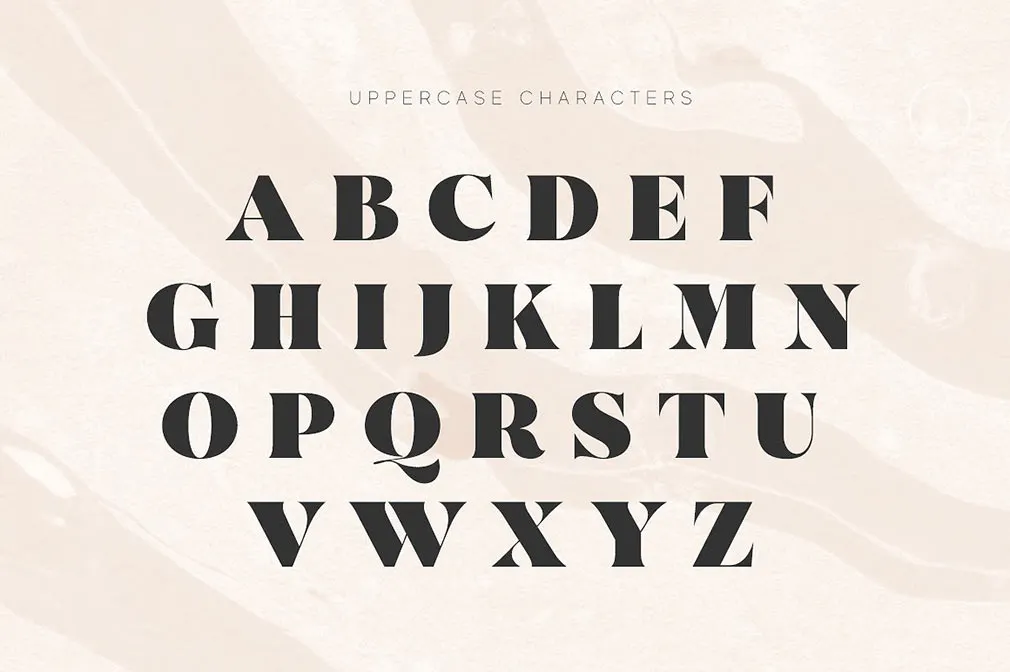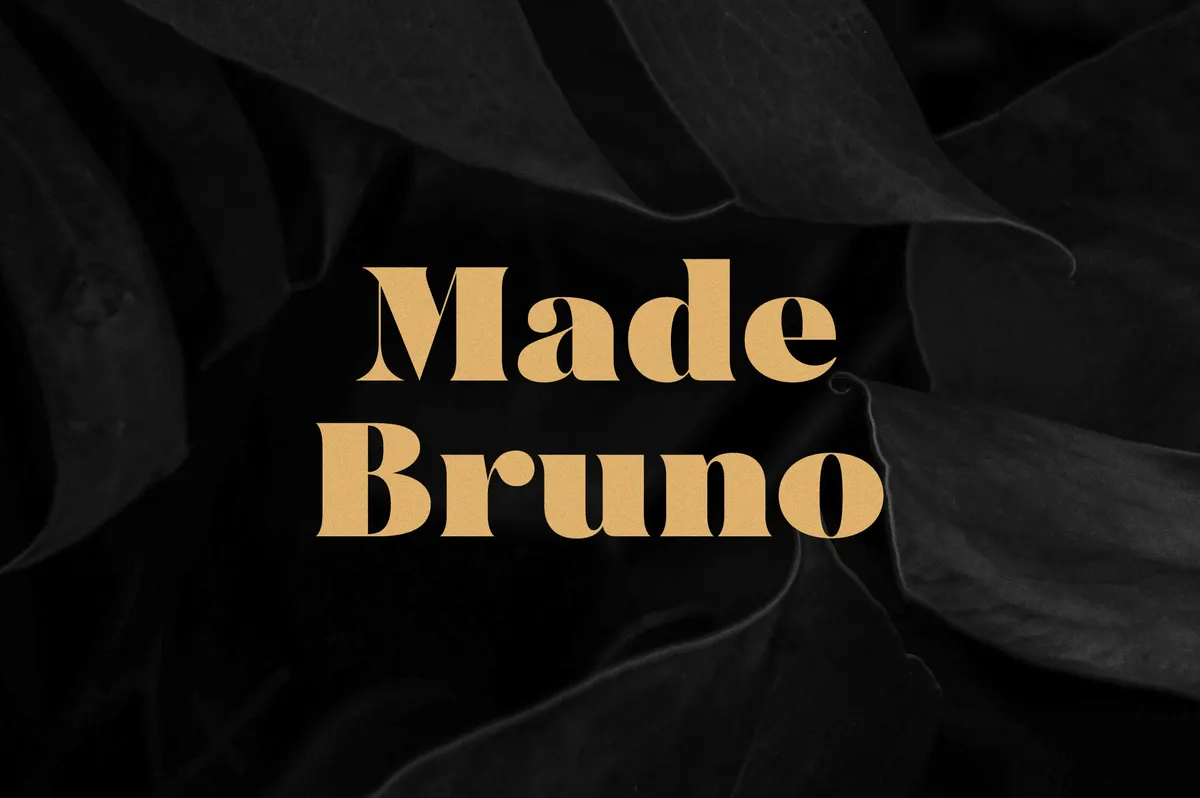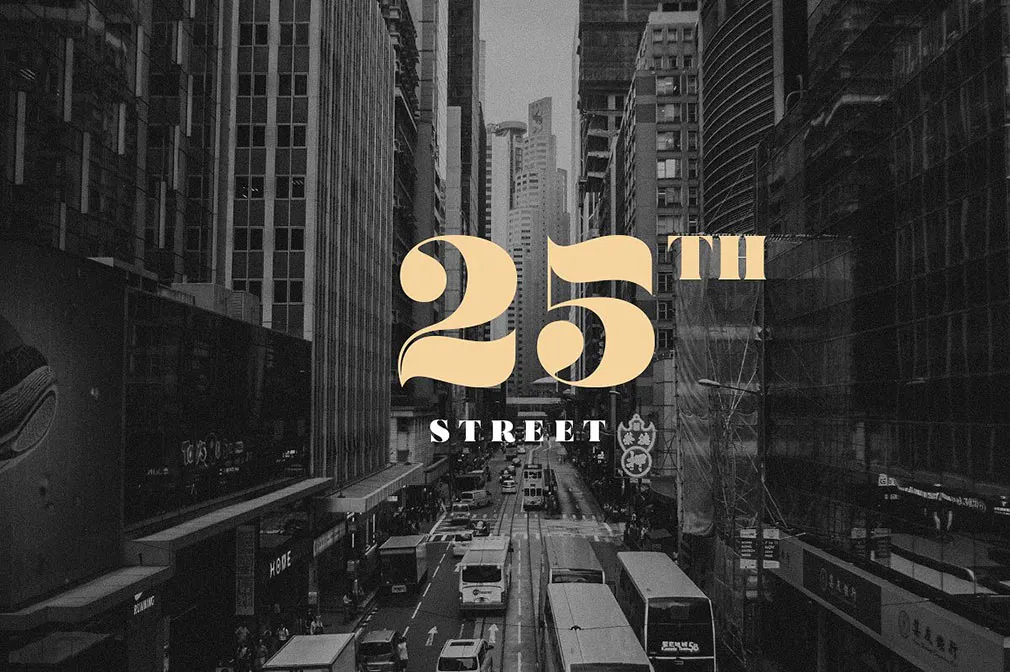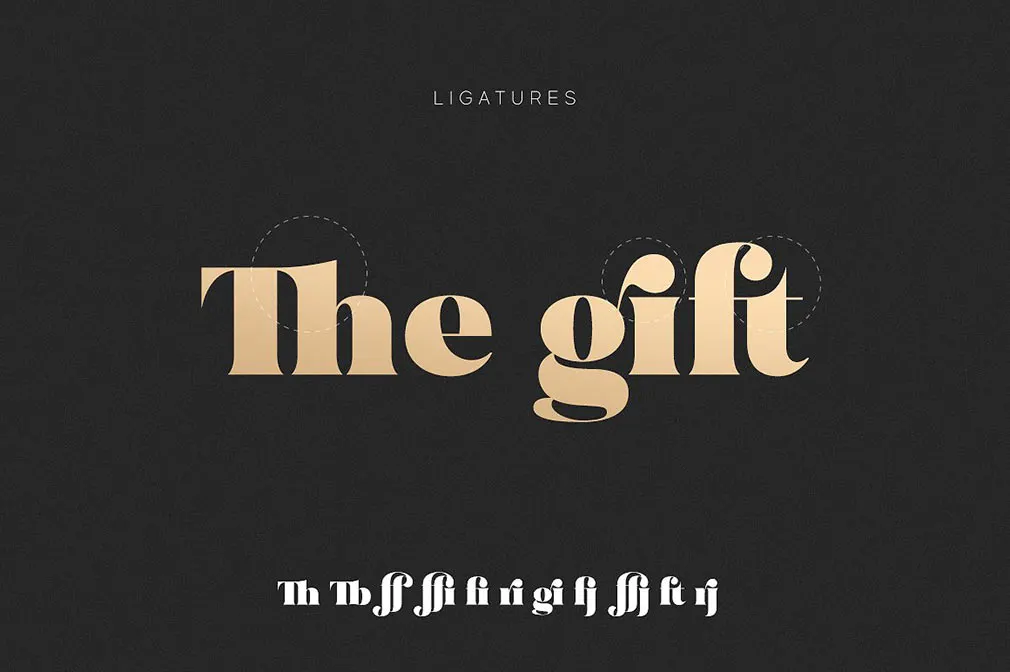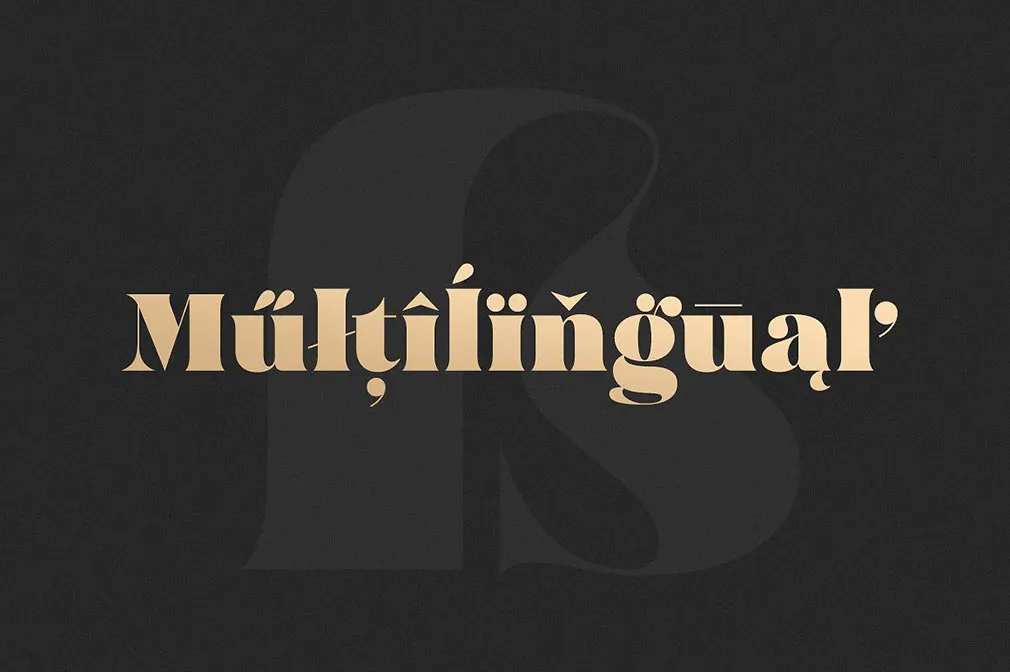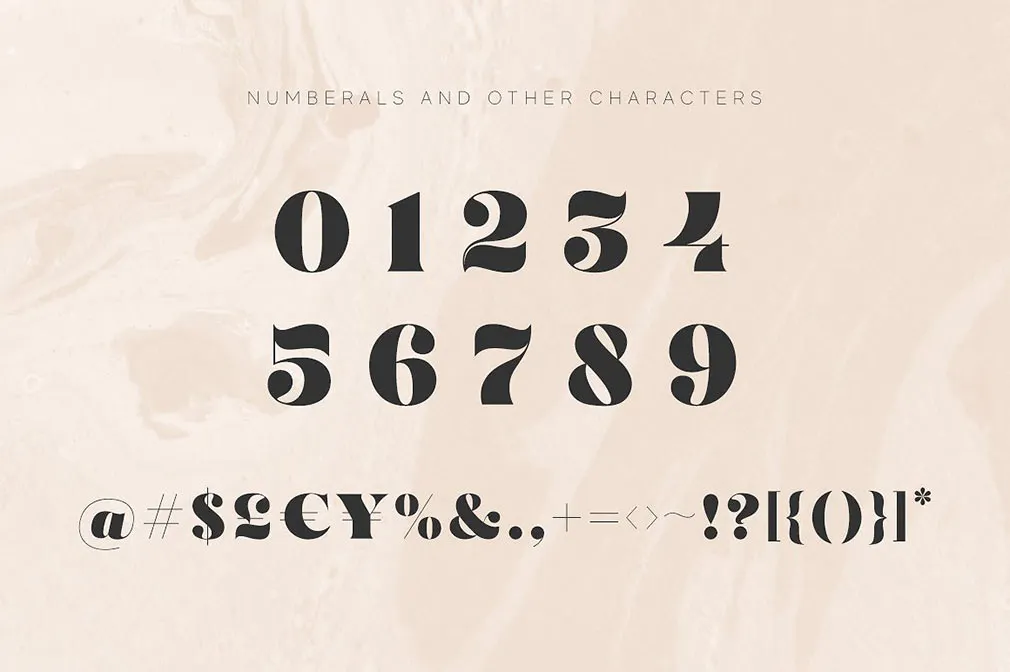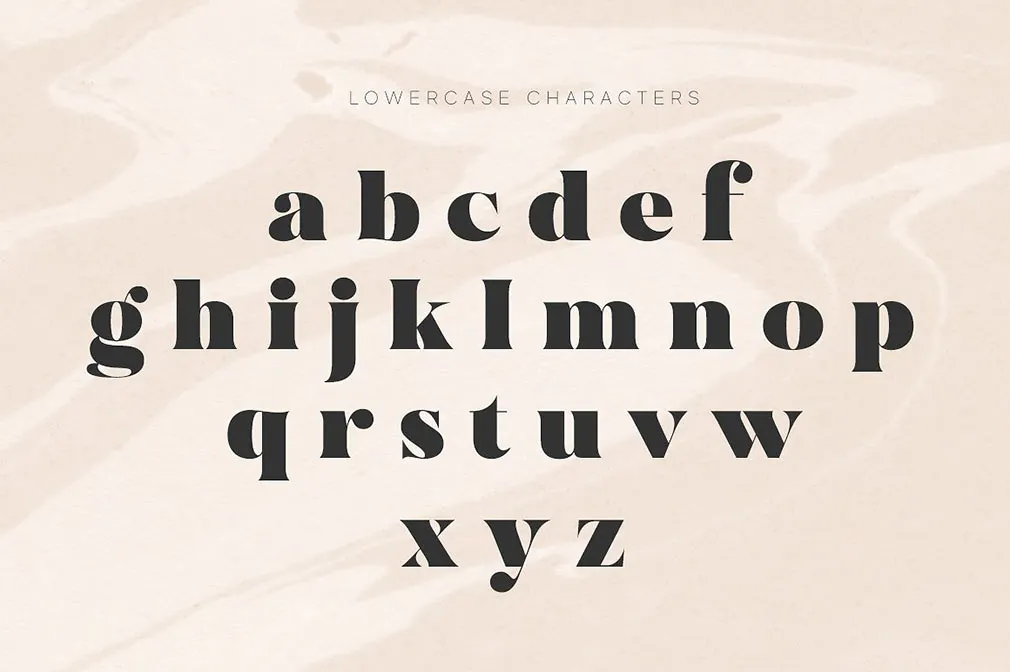
Made Bruno Typeface
Being in love with classic typography, we're just amazed to introduce Made Bruno to you a display serif typeface created with ultimate expertise by MadeType team.
Made Bruno is a perfect solution for any artwork especially if you feel like emphasizing its modern yet reserved character. Fashion magazines, logos, cards, header, and ads are just a short extract of a long list of projects you can apply it too. What also makes this typeface an excellent choice for a choosy creative as you are is uppercase & lowercase letters, numbers, punctuation & multilingual support. Ain't it the right set for unlimited creative freedom?